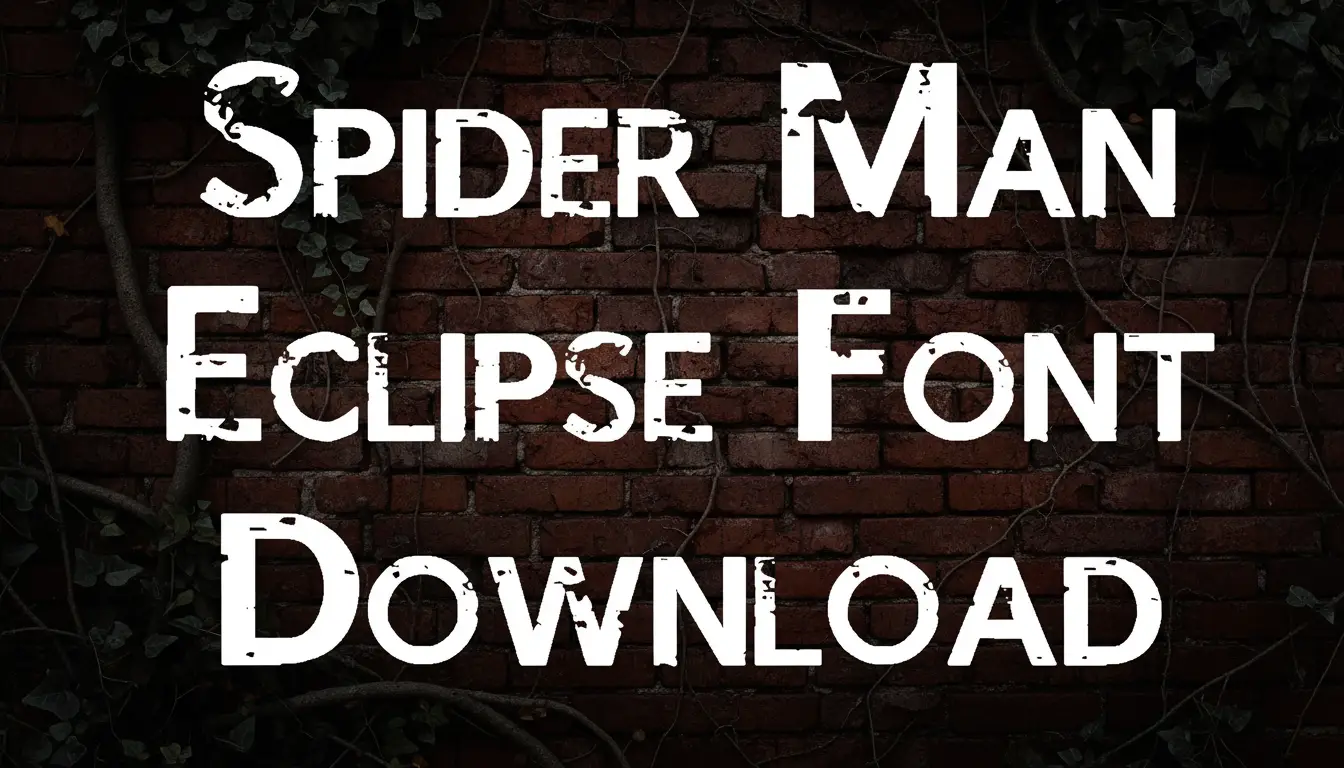
Spider Man Eclipse Font
Spider Man Eclipse is a fancy font designed by SpideRaY and published by SpideRaY @. It's a decorative display font with plenty of personality, made to grab attention. It's a free download, and you can try it with your own text in the preview above first.
What You Can Type With Spider Man Eclipse
Spider Man Eclipse covers the full alphabet in upper and lowercase, plus all ten numbers, so you can set names, dates and prices without switching fonts. Everyday marks like &, !, ? and @ are there too. Thanks to its accented letters, it also works for Italian, not just English.
Designers usually reach for fonts like Spider Man Eclipse when they're making posters, logos and eye-catching headlines. Use it for one standout word or headline and let simpler fonts handle the rest.
Yes. Spider Man Eclipse includes the accented letters needed for Italian, so it works for more than just English.